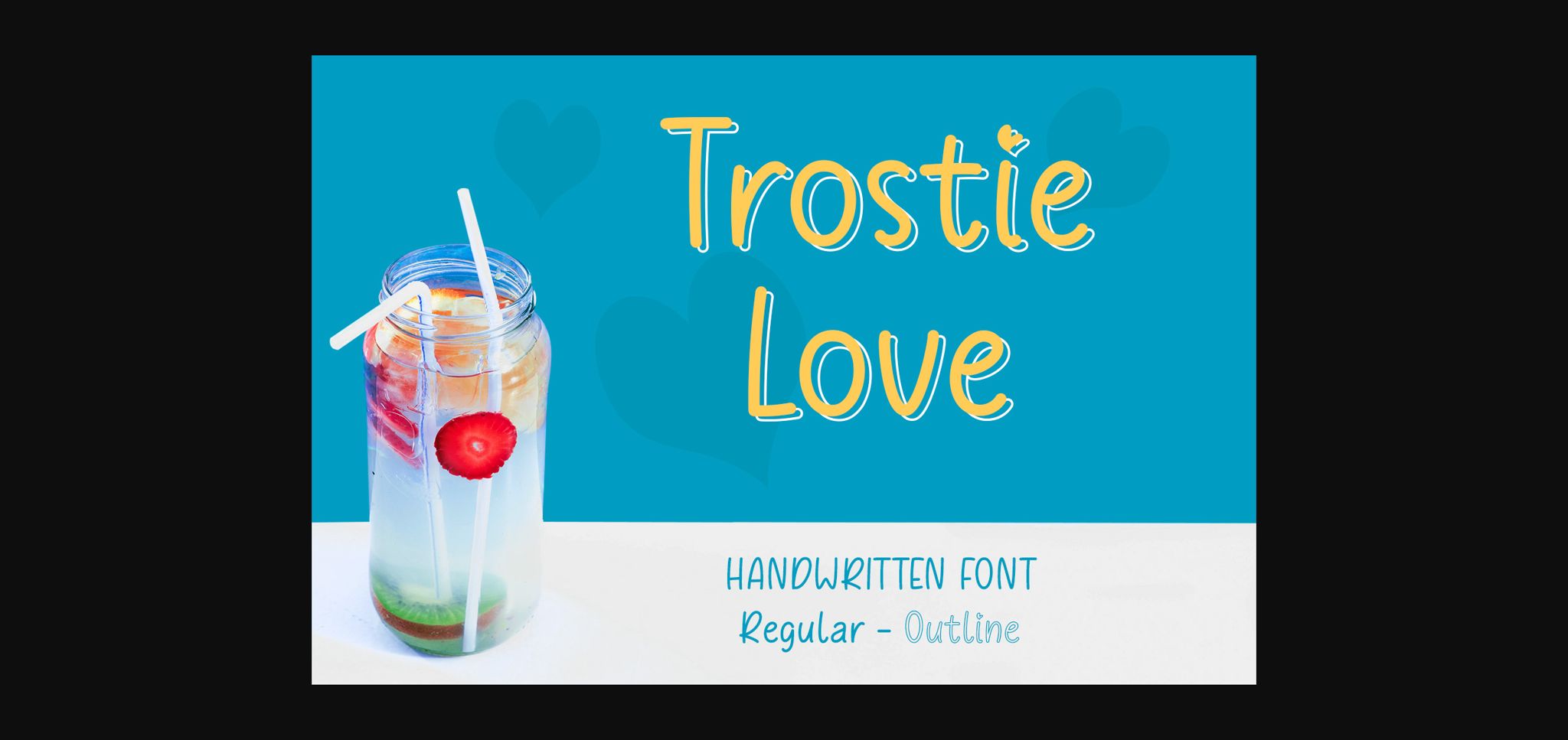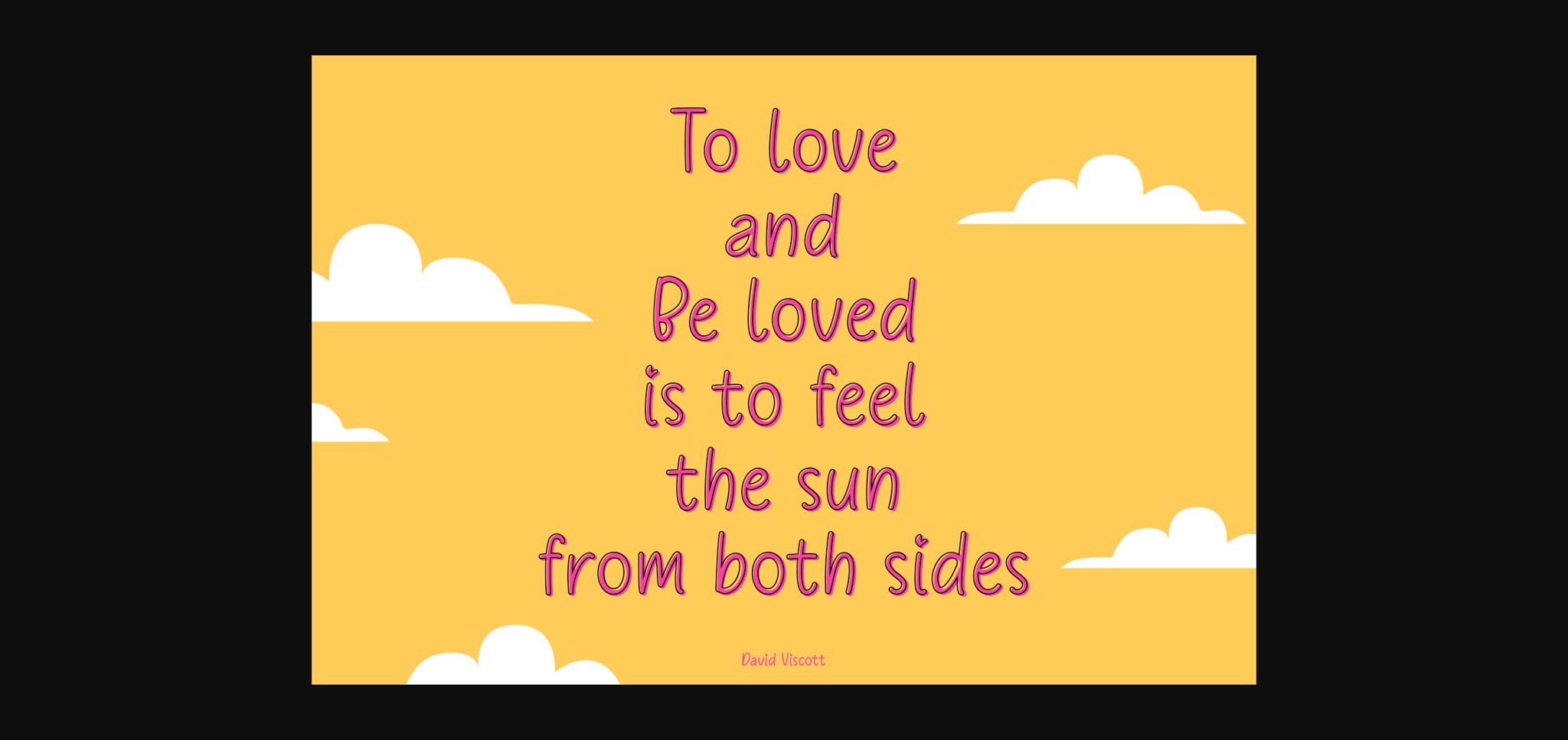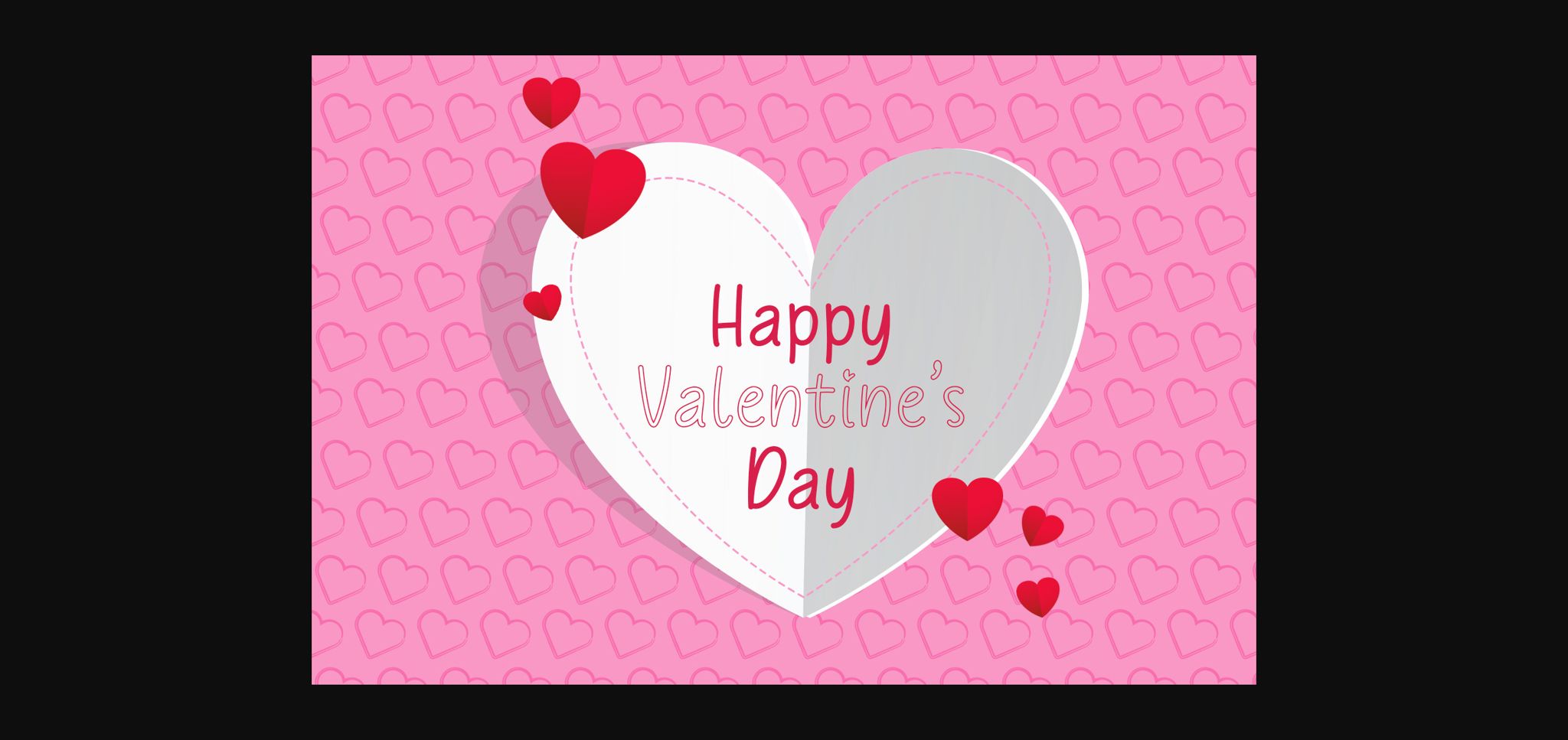
About Trostie Love Font
Trostie Love is a handwritten font, cute and fun. This font is perfect for quotes, headings, blogs, logos, invitations, weddings, watermark, social media posts, product packaging, product designs, label, special events and more!